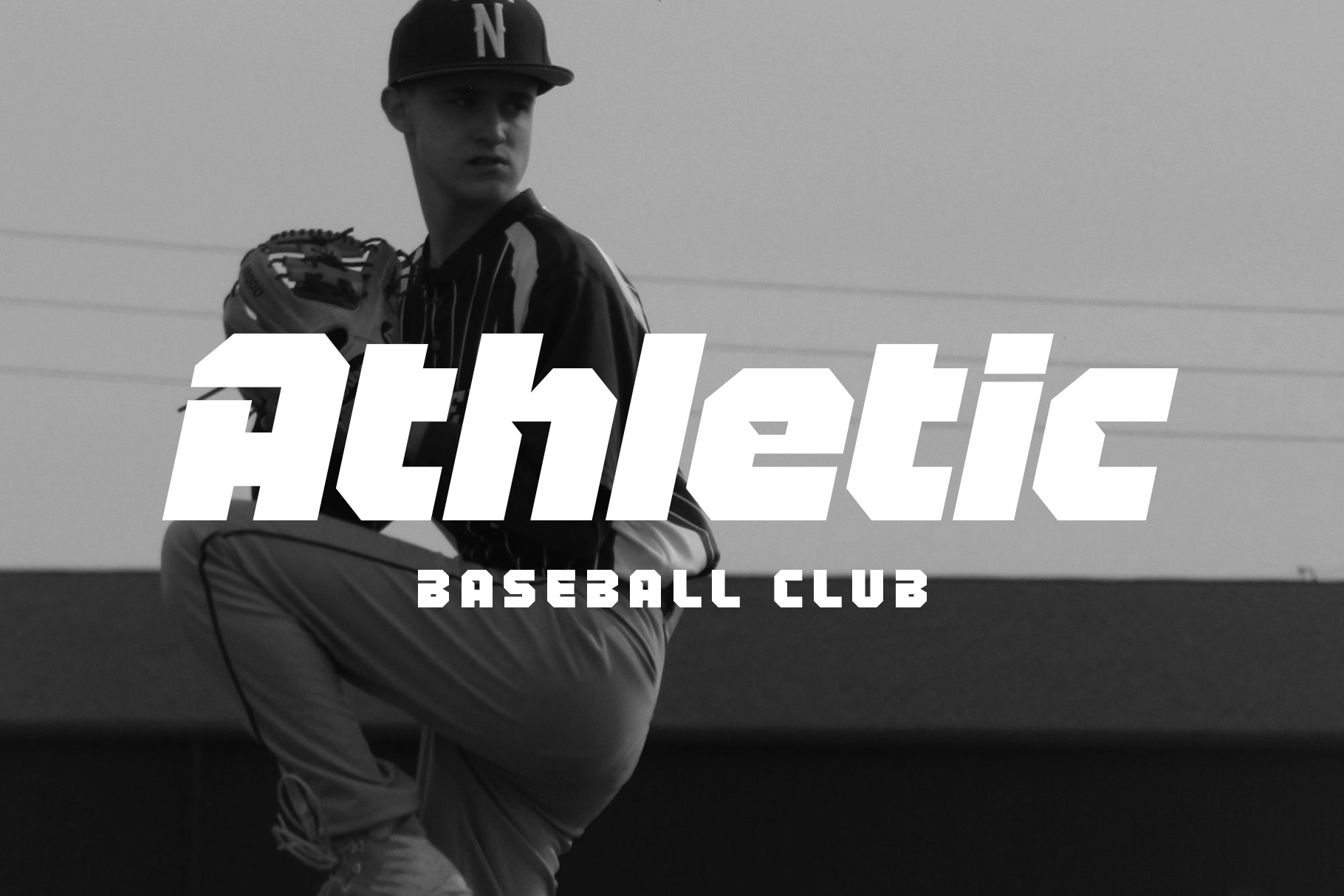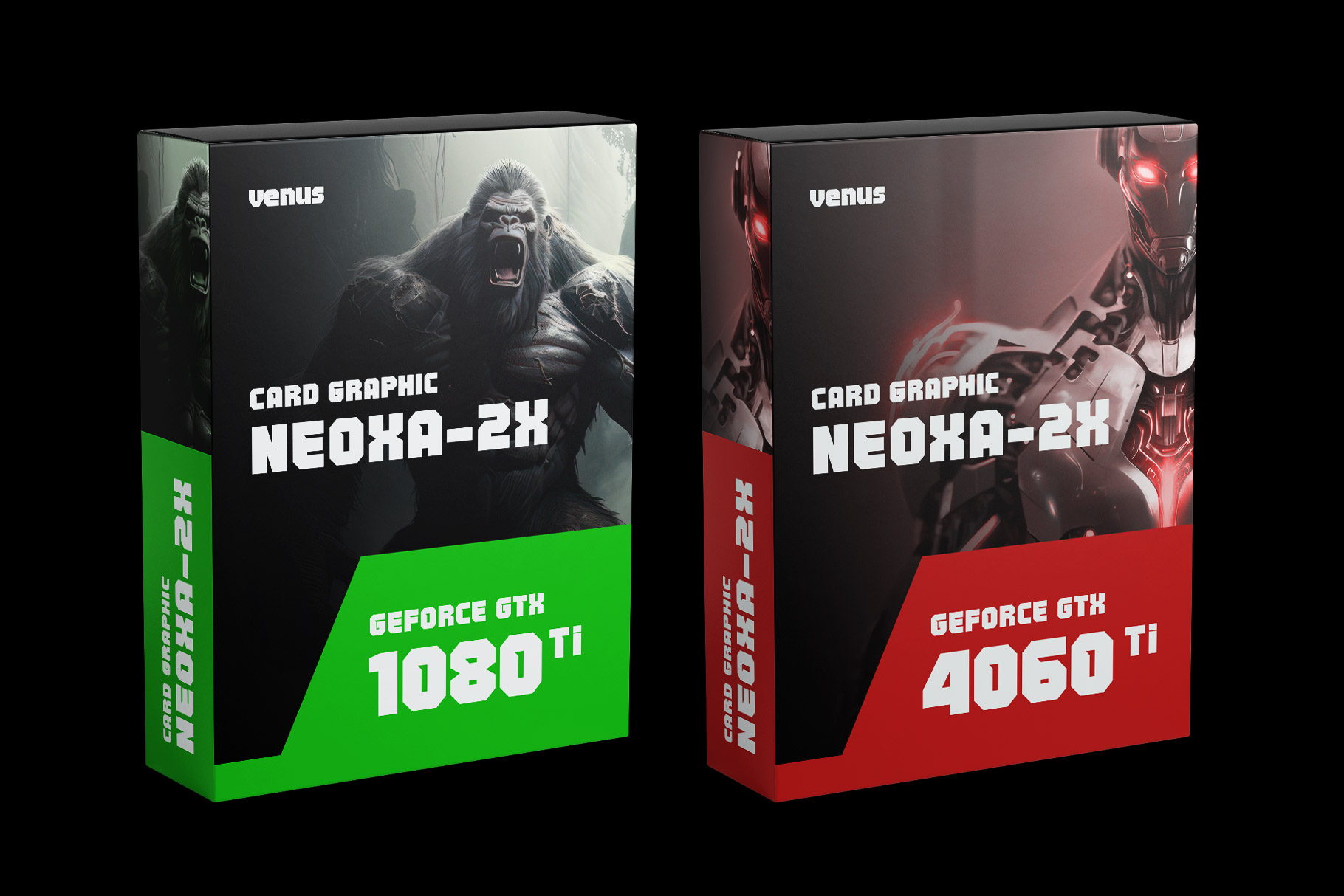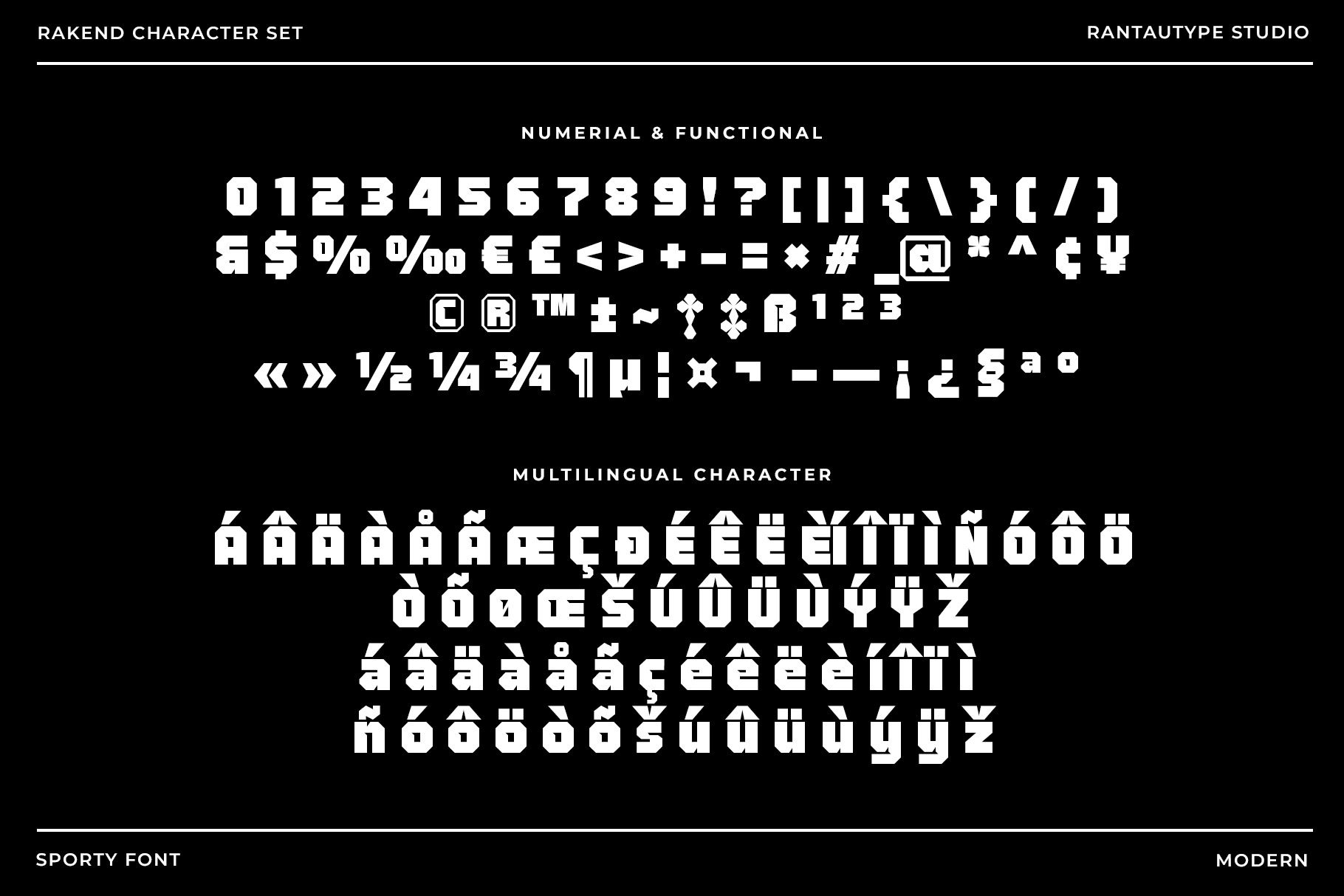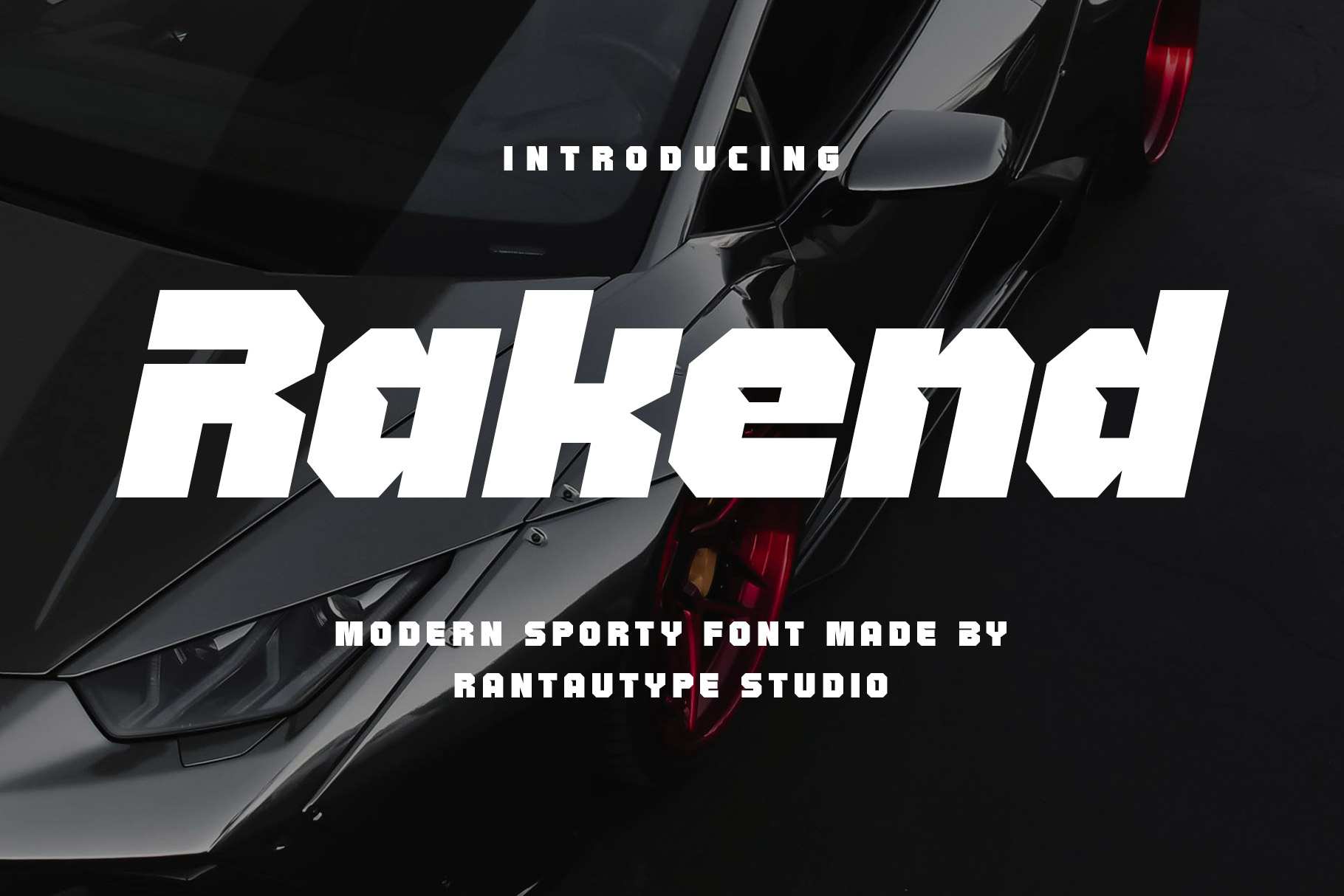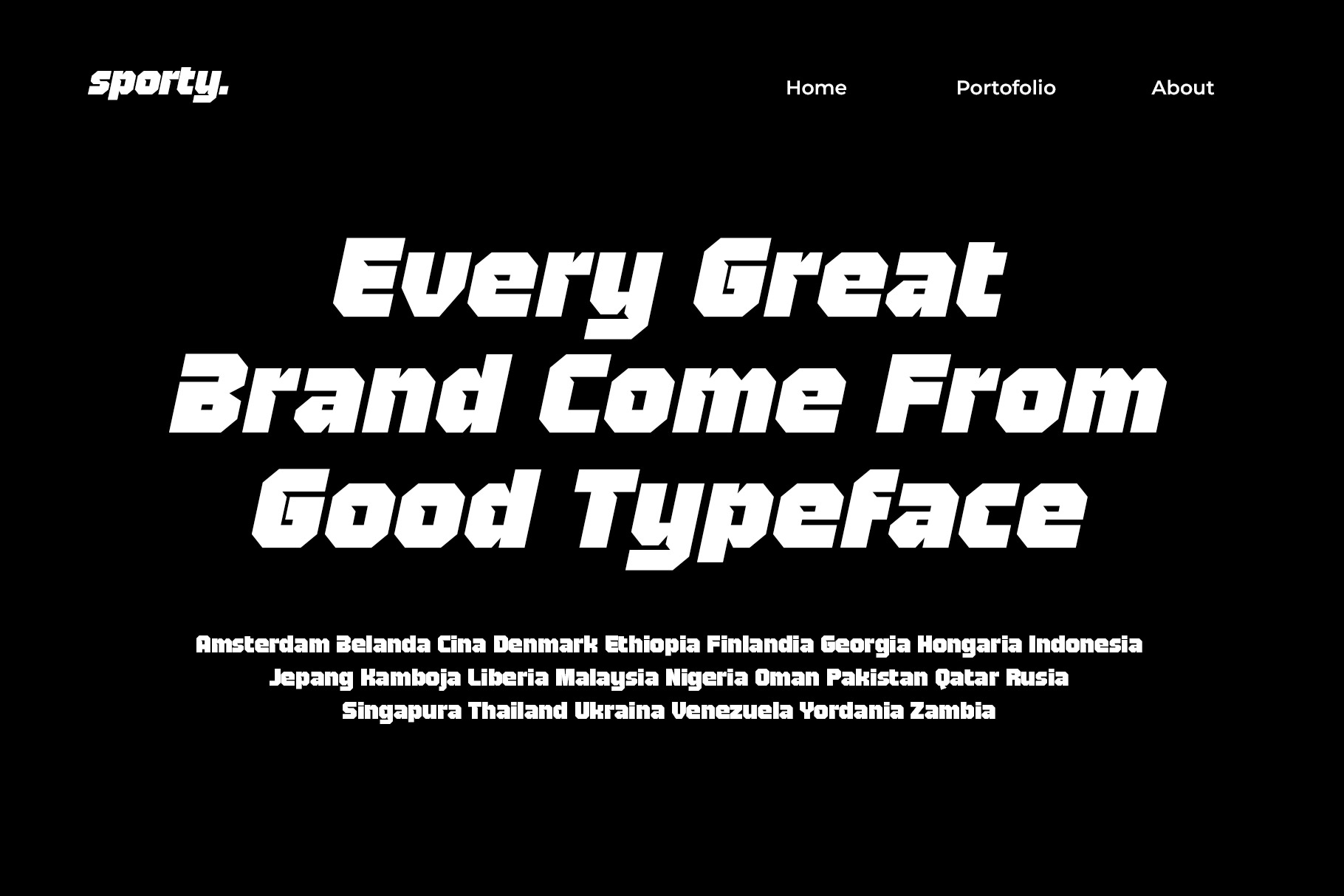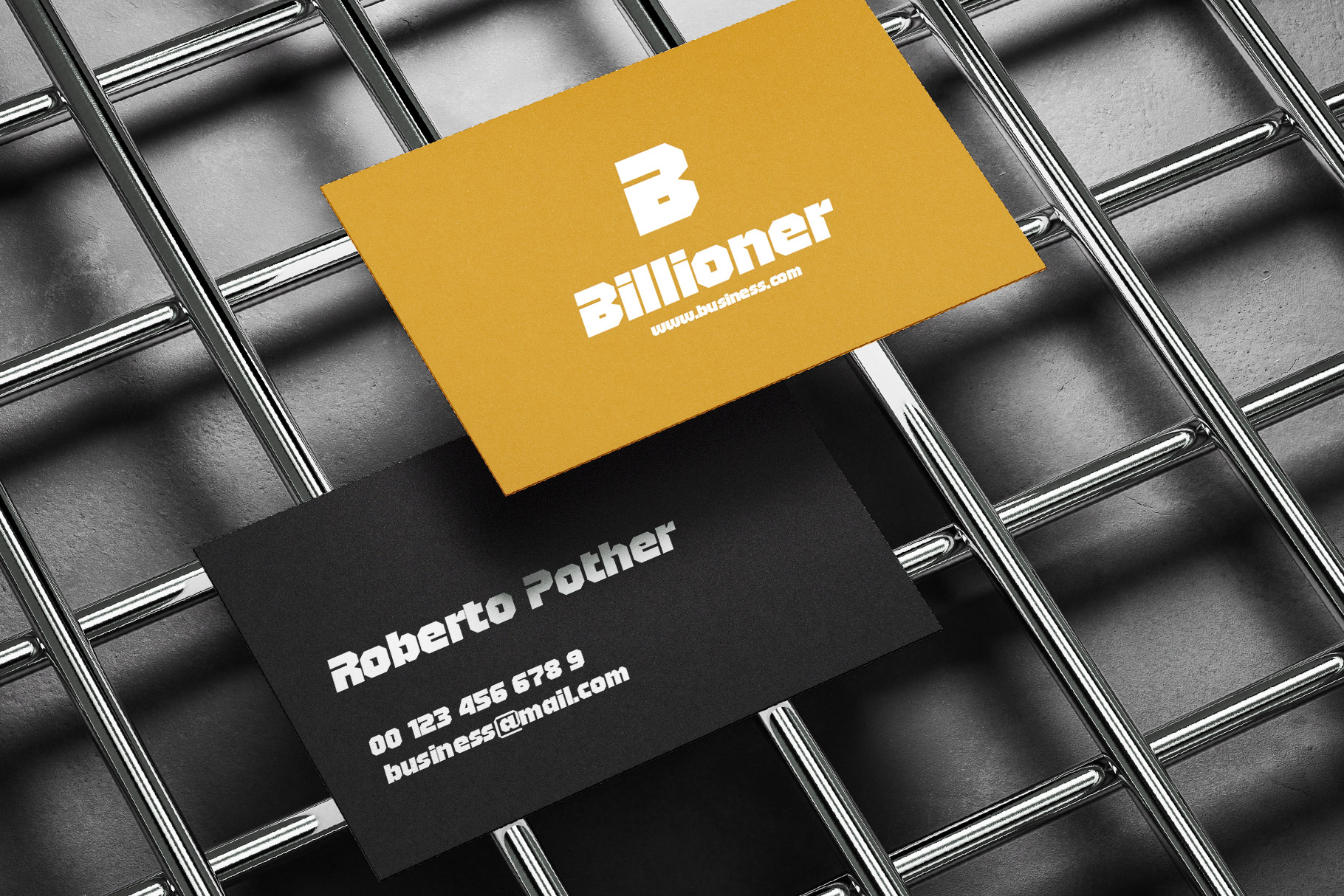
Rakend Modern Sporty Font
Rakend is modern and bold sporty font made by rantautype studio. Rakend come with enery, strength and a contemporary edgy. Rakend is a perfectly choice for any creative endeavor, sporty, lifestyle design such as logotype, advertisements, watermark on photography, stationery, branding project, display and magazine, invitation, corporate brand, product design, label, business project and many other project with sporty touch.